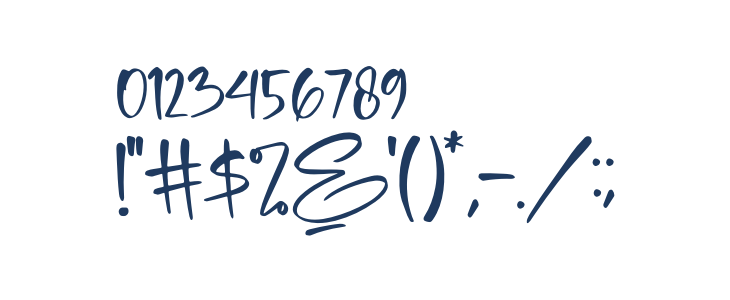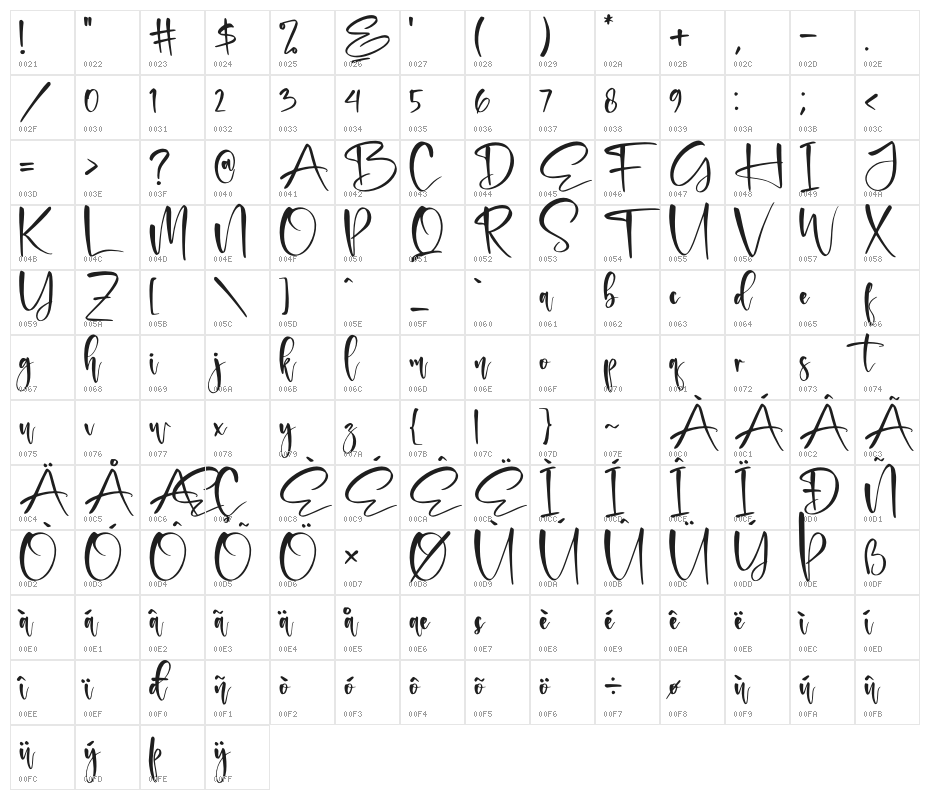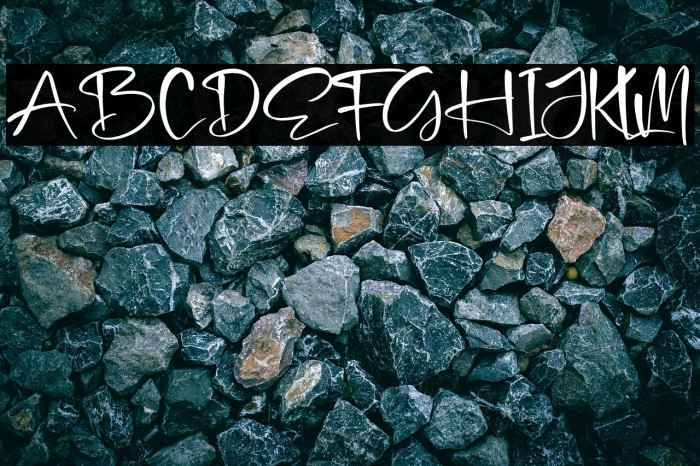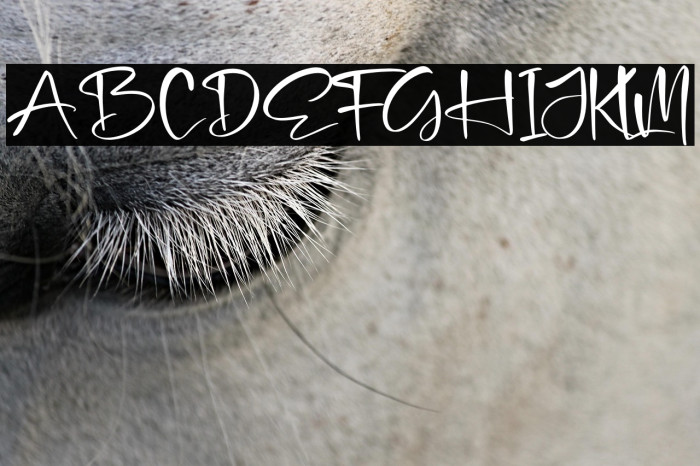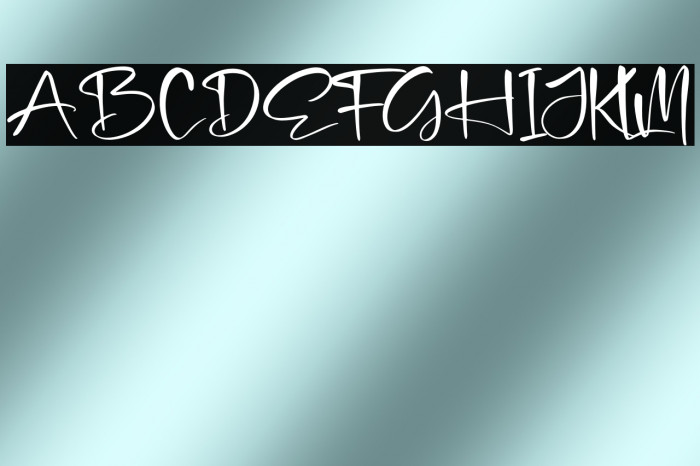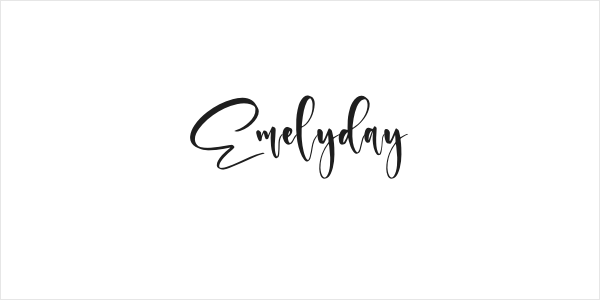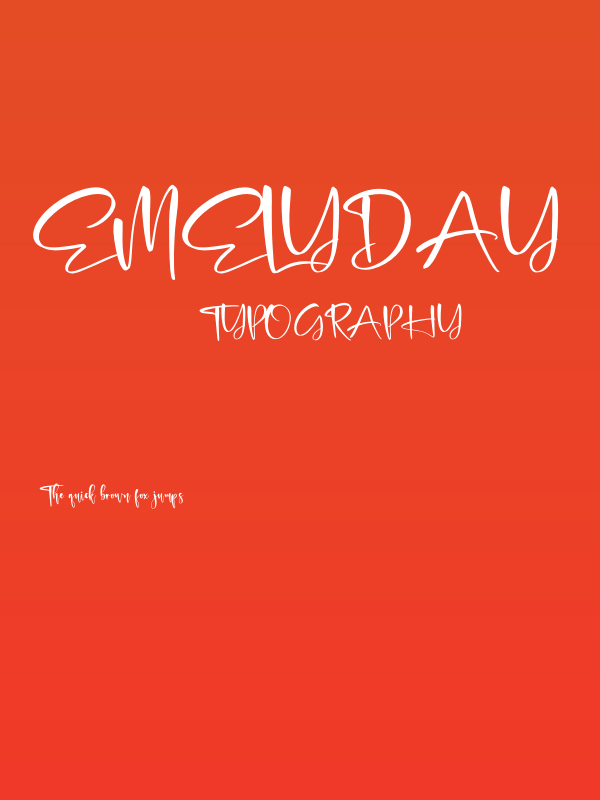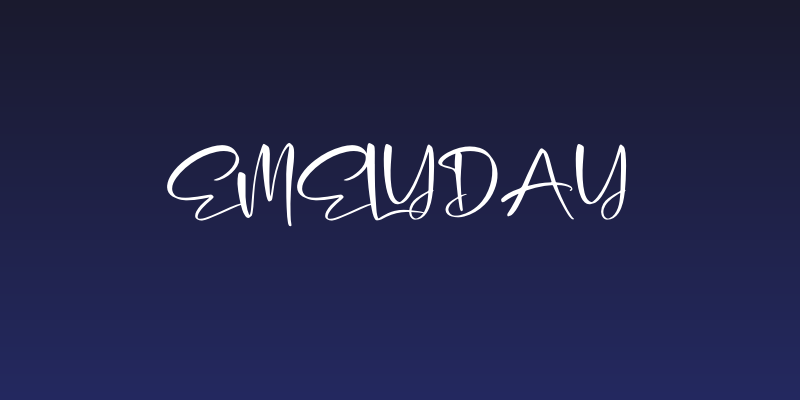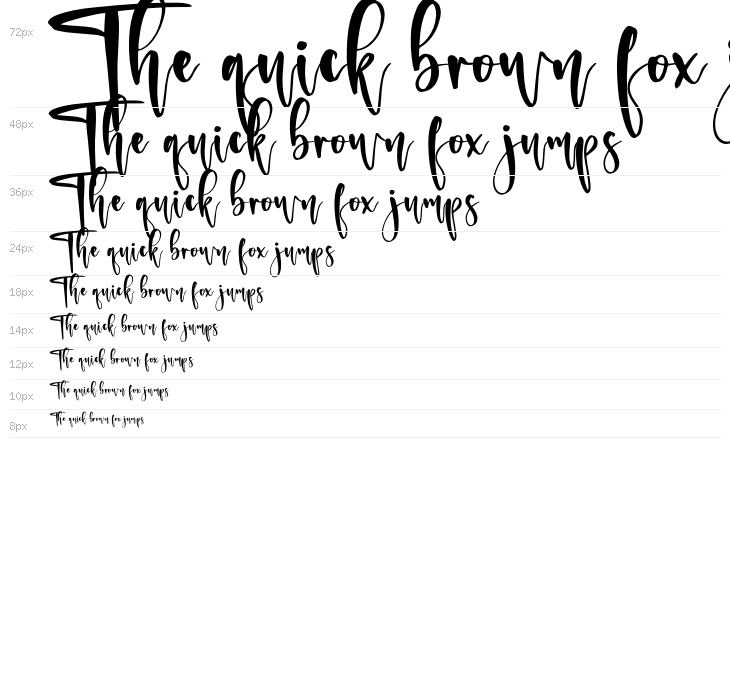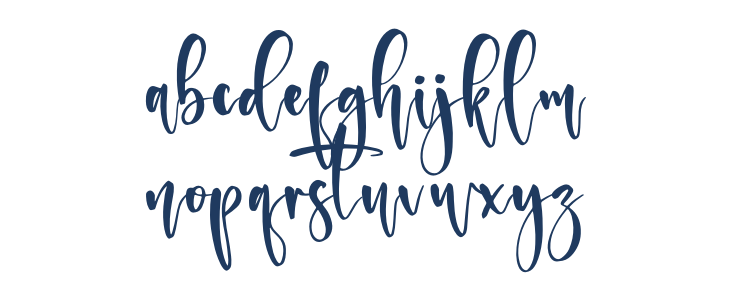
Emelyday Font
Emelyday Description
This font features a lively and expressive handwritten style, characterized by its fluid and dynamic strokes. The uppercase letters are bold and slightly slanted, giving a sense of movement and energy. The lowercase letters are more varied in height, adding a playful and informal touch. The numbers and special characters maintain the same energetic style, ensuring consistency throughout. This font is perfect for projects that require a personal and creative touch, such as invitations, greeting cards, or branding materials. Its unique style makes it stand out, while still being legible and versatile.
| Proposed Projects | Ideal for invitations, greeting cards, branding, and creative projects. |